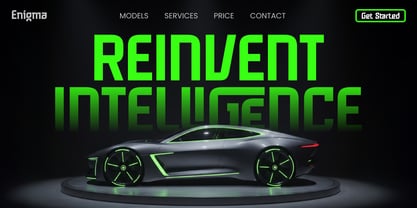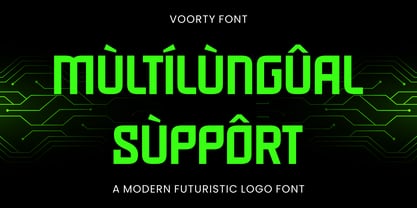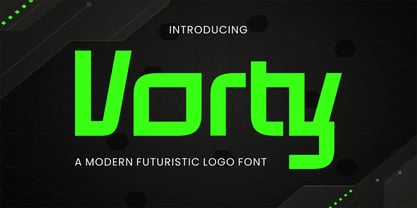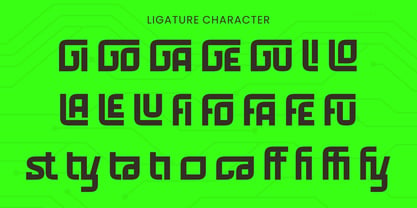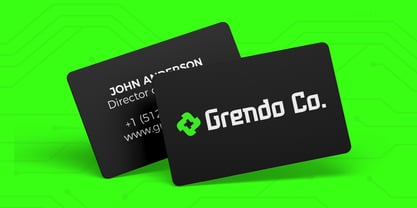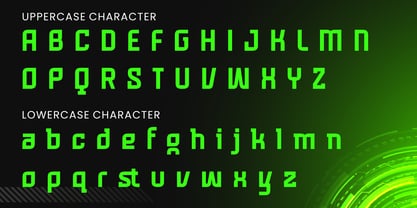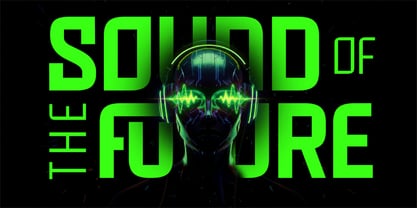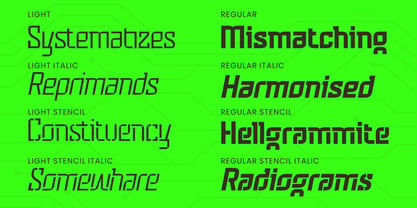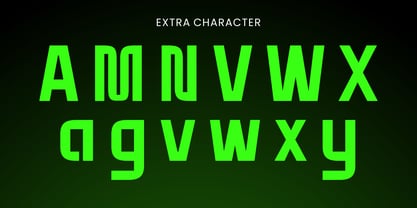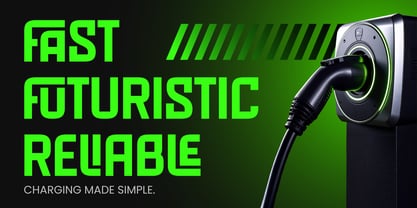
Voorty
by Bimaksara
The Voorty Font Family was designed by Nur Mokhamad Bismatulloh and published by Bimaksara. Voorty contains 8 styles and family package options. More about this family
Vorty is a modern futuristic display font built with bold geometric shapes, clean lines, and distinctive rounded details. Its strong construction gives every word a confident, dynamic, and technology-driven appearance.
Created for modern visual identities, Vorty combines simple geometric forms with unique letter shapes that remain clear and memorable. It works especially well for projects that need a bold, innovative, and forward-looking personality.
Designers: Nur Mokhamad Bismatulloh
Foundry: Bimaksara